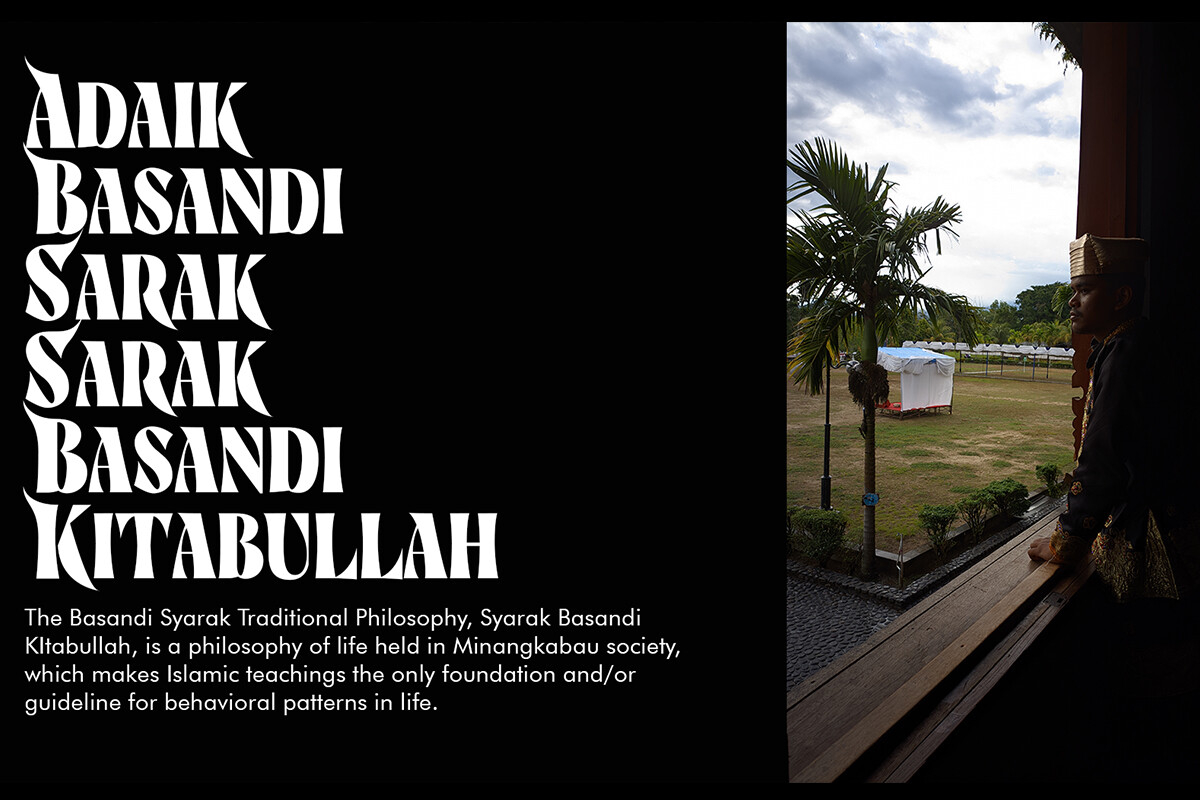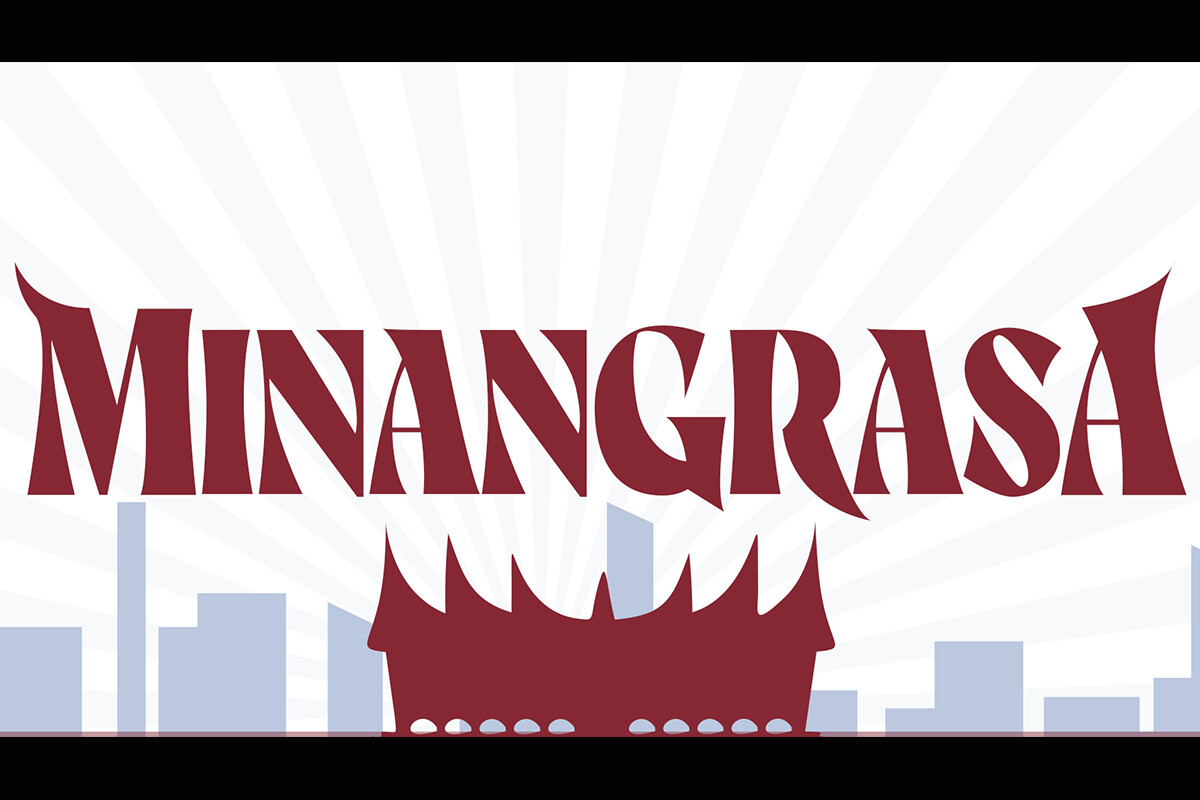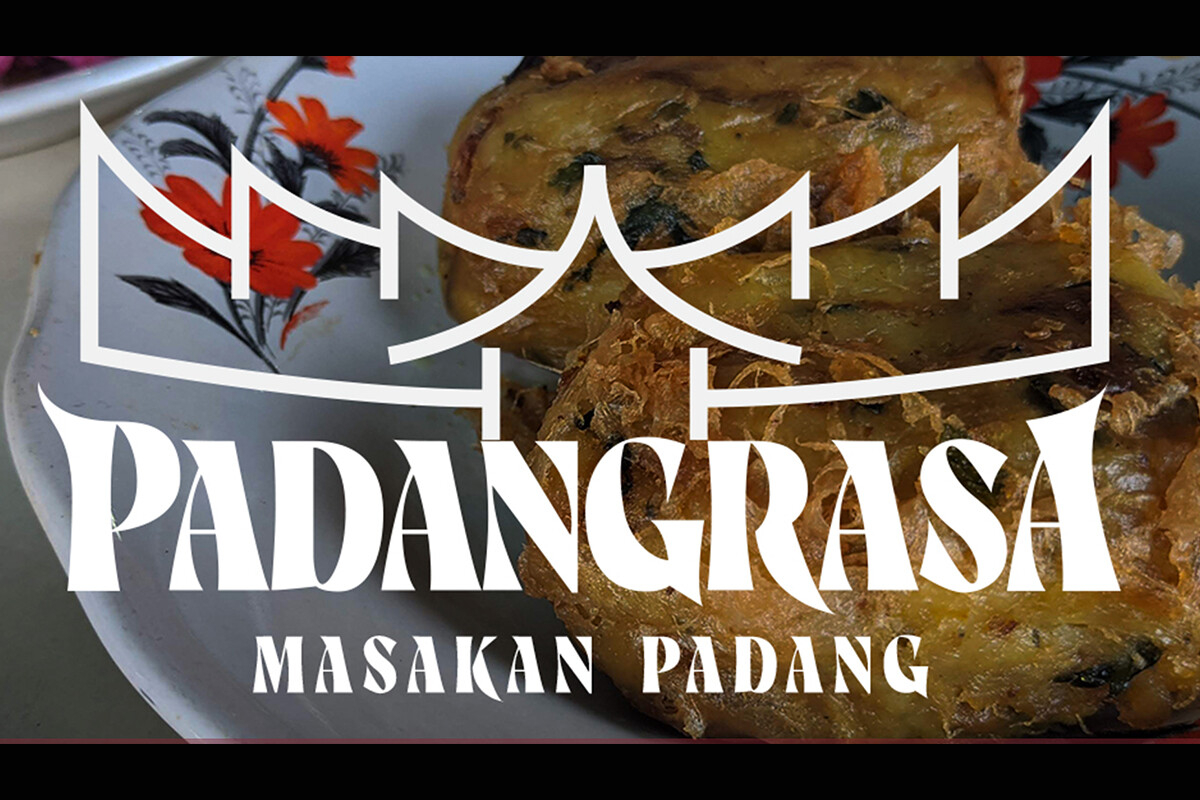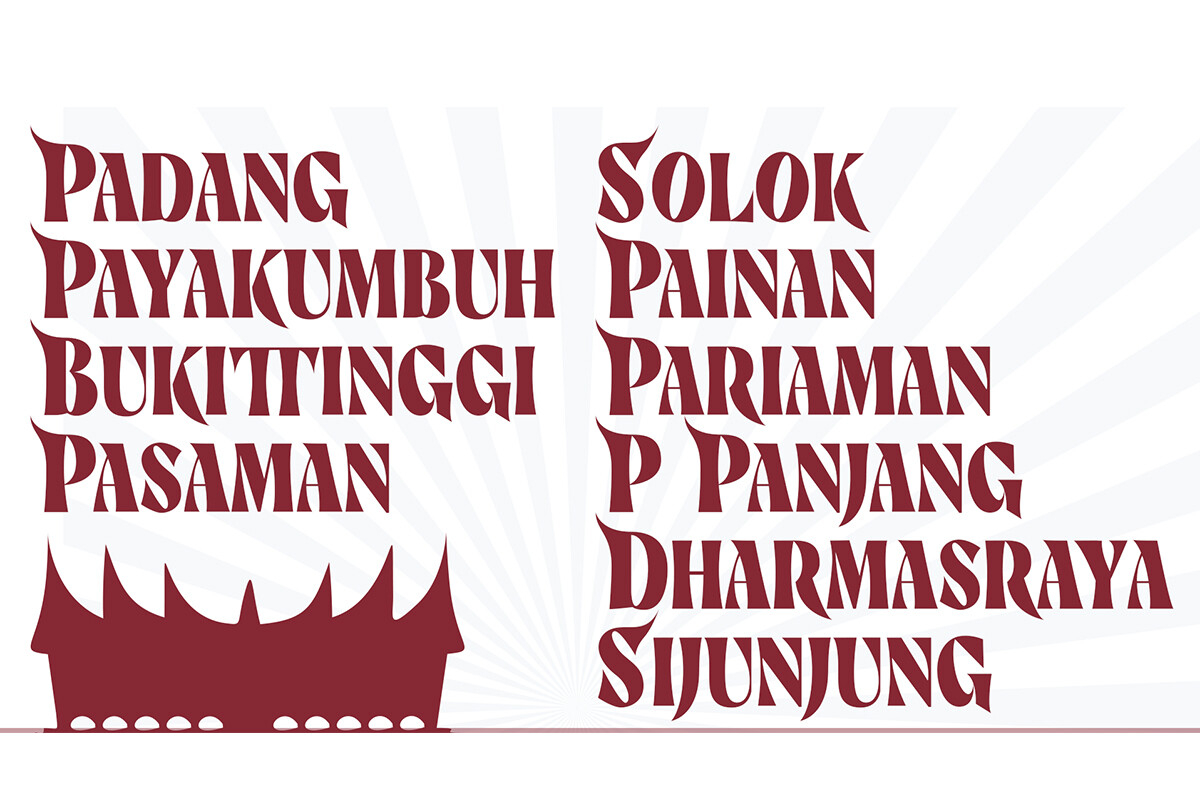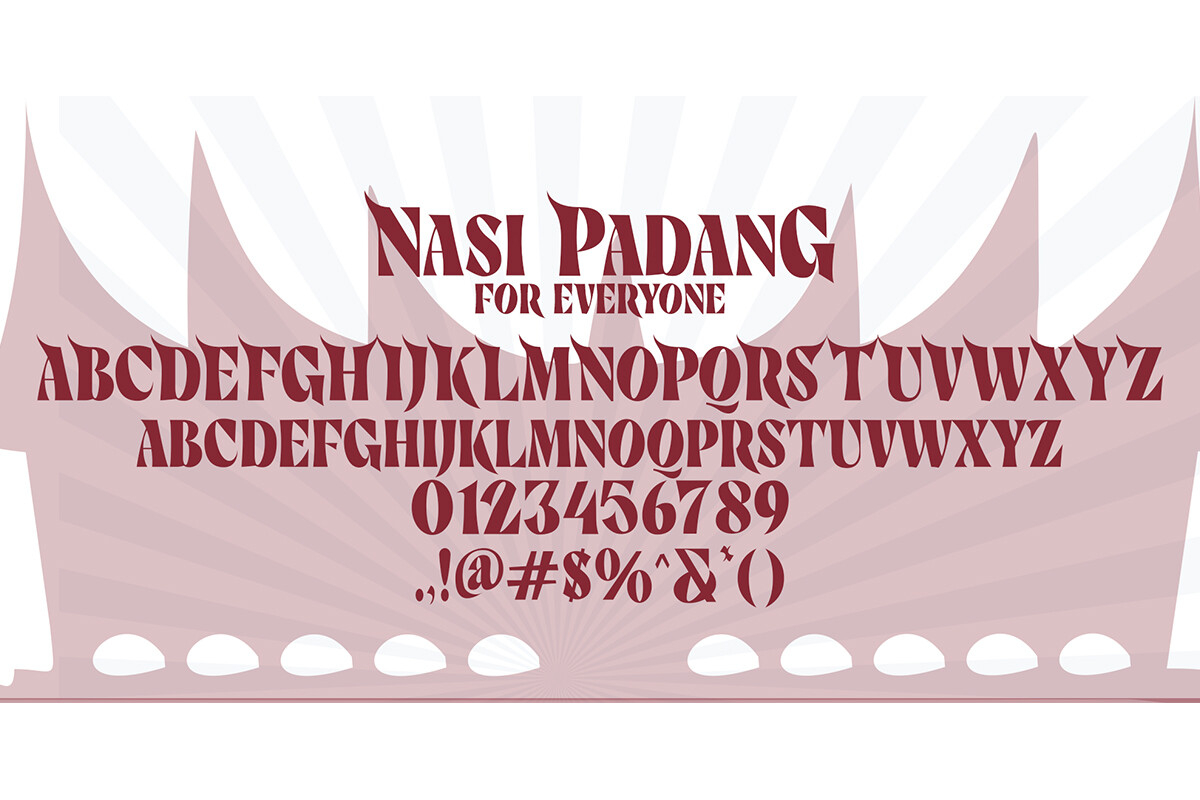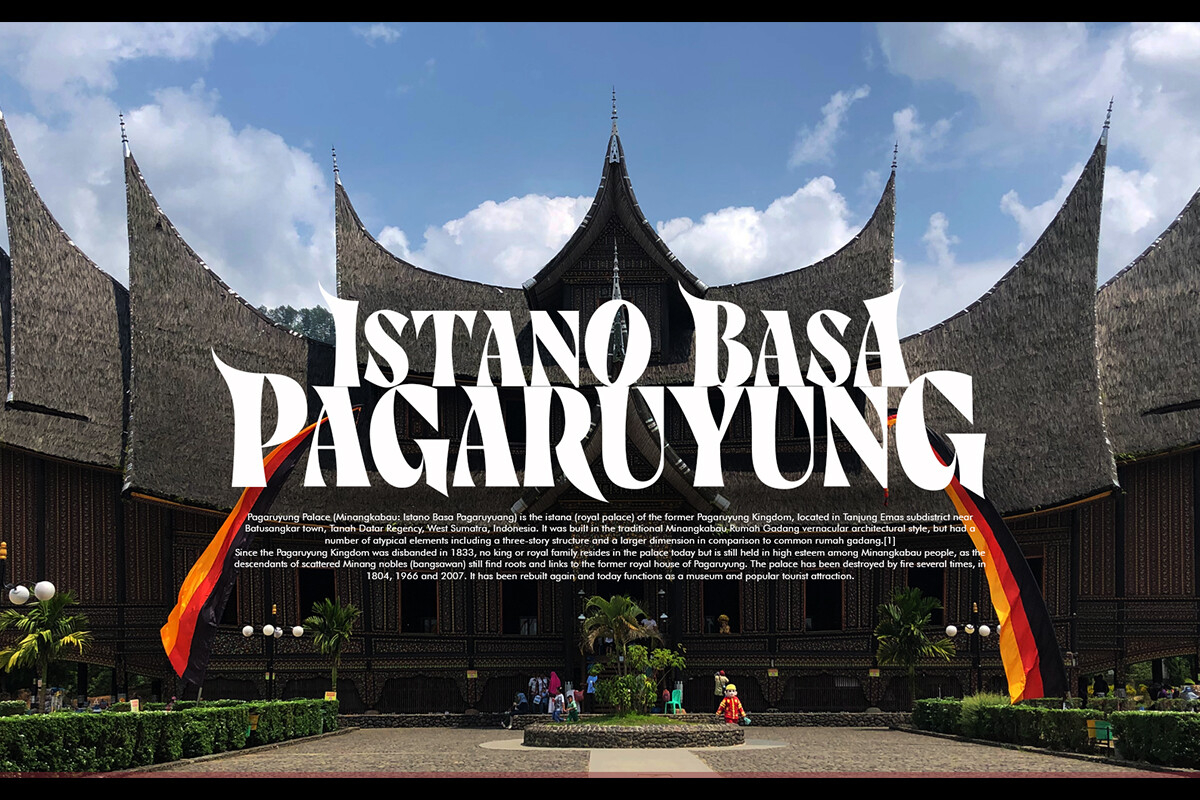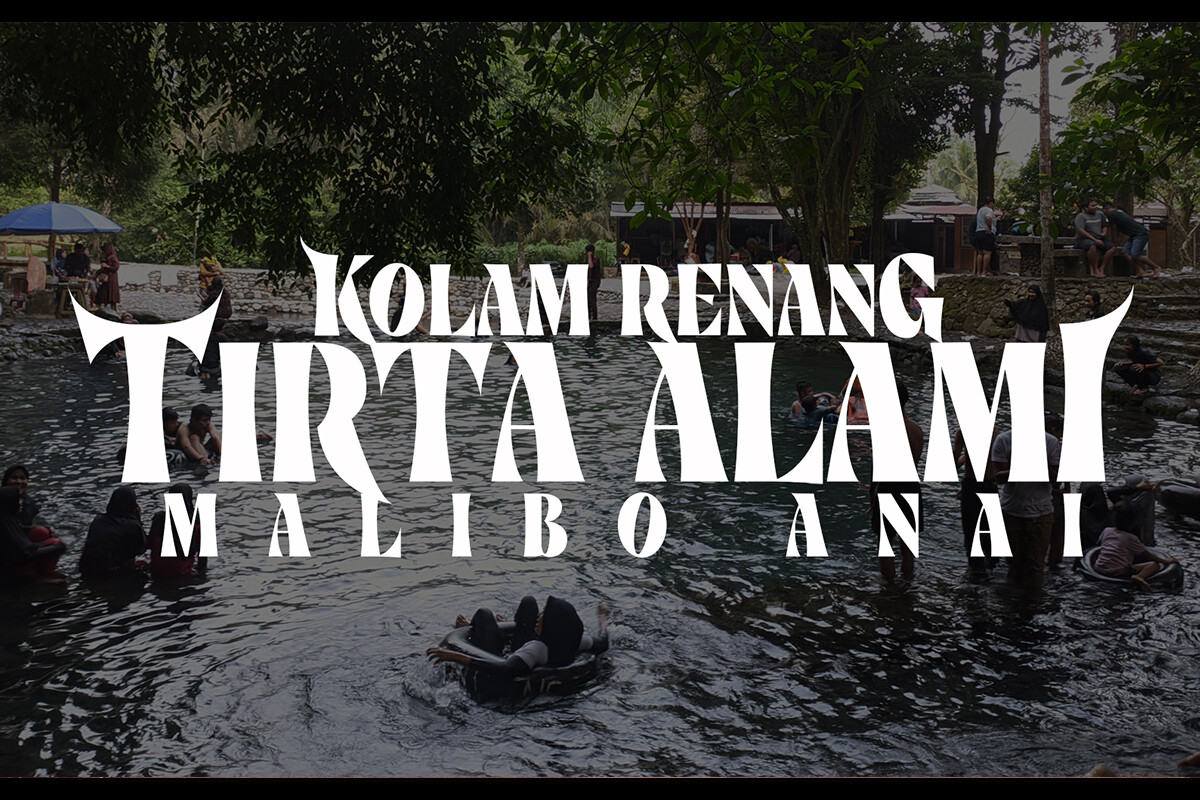
Minangrasa Font
About Minangrasa Font
Minangrasa is a blackletter inspired by traditional houses in West Sumatra, Indonesia which are shaped like cow horns. It’s bold and fun with a retro twist. Using all caps results in very stylish text, while combining capital letters produces text that is very easy to read.